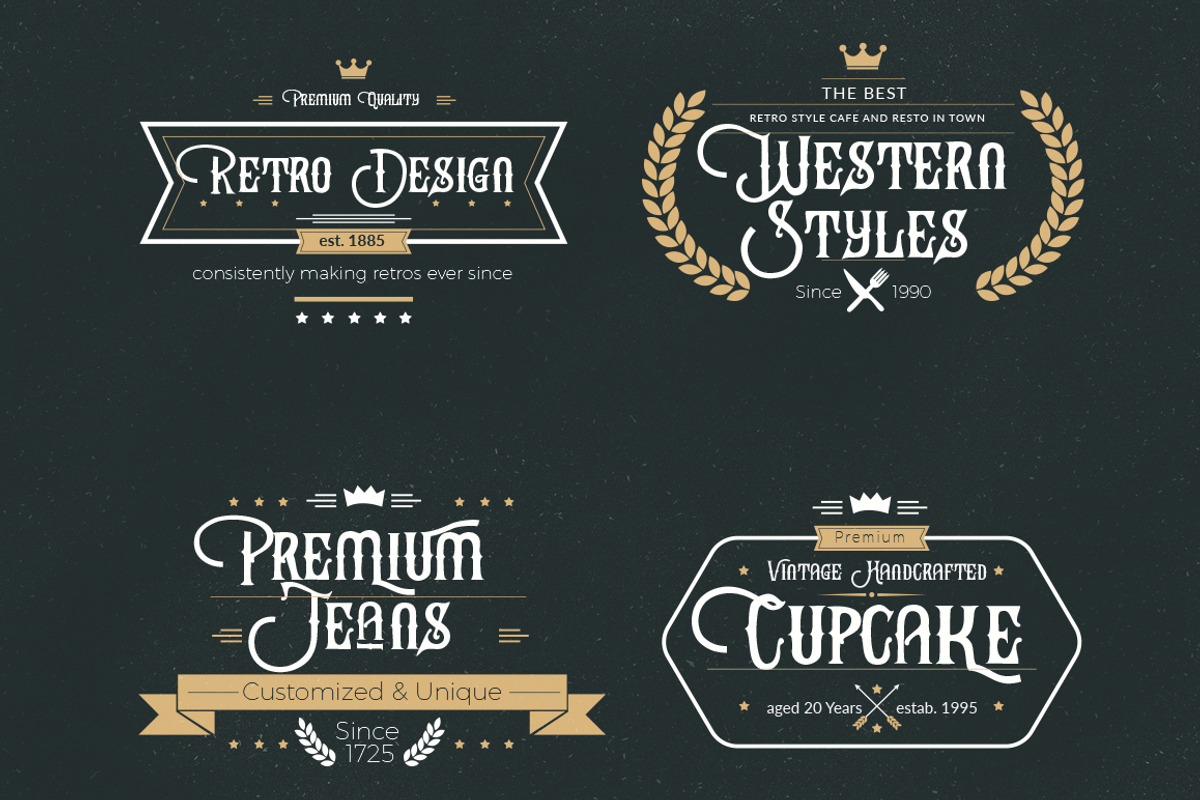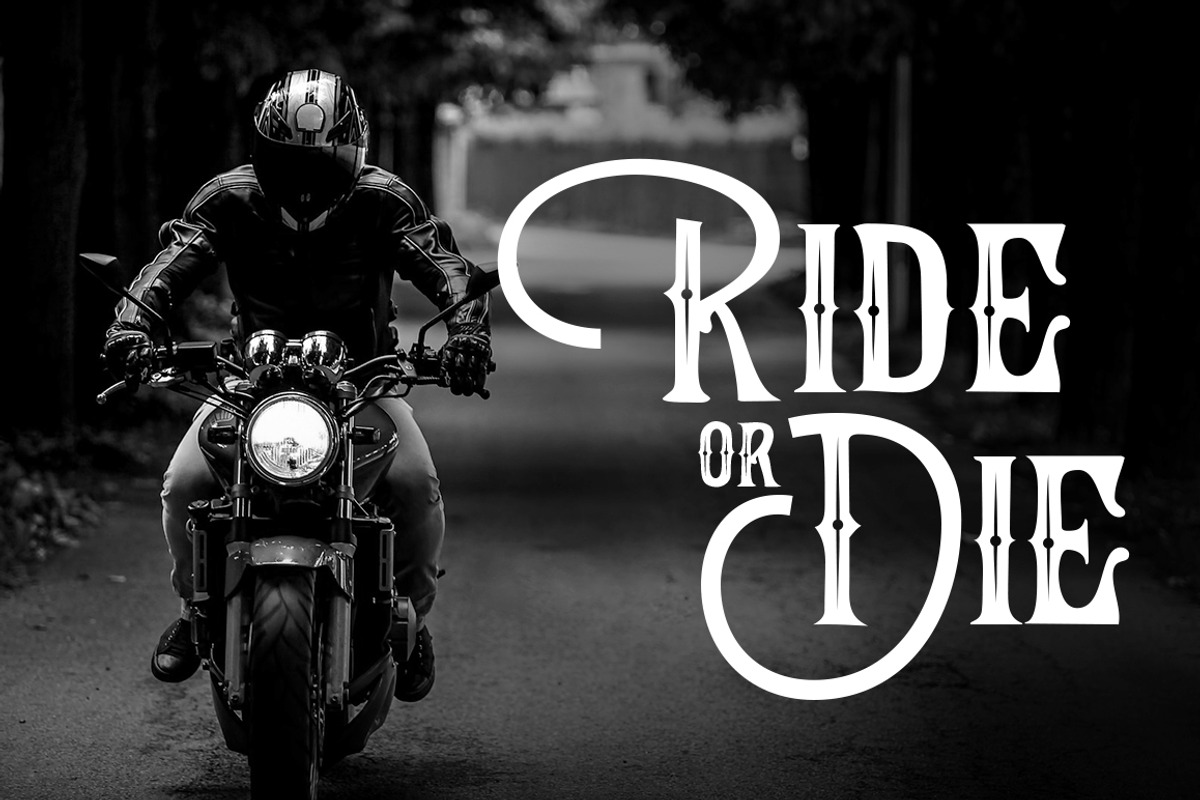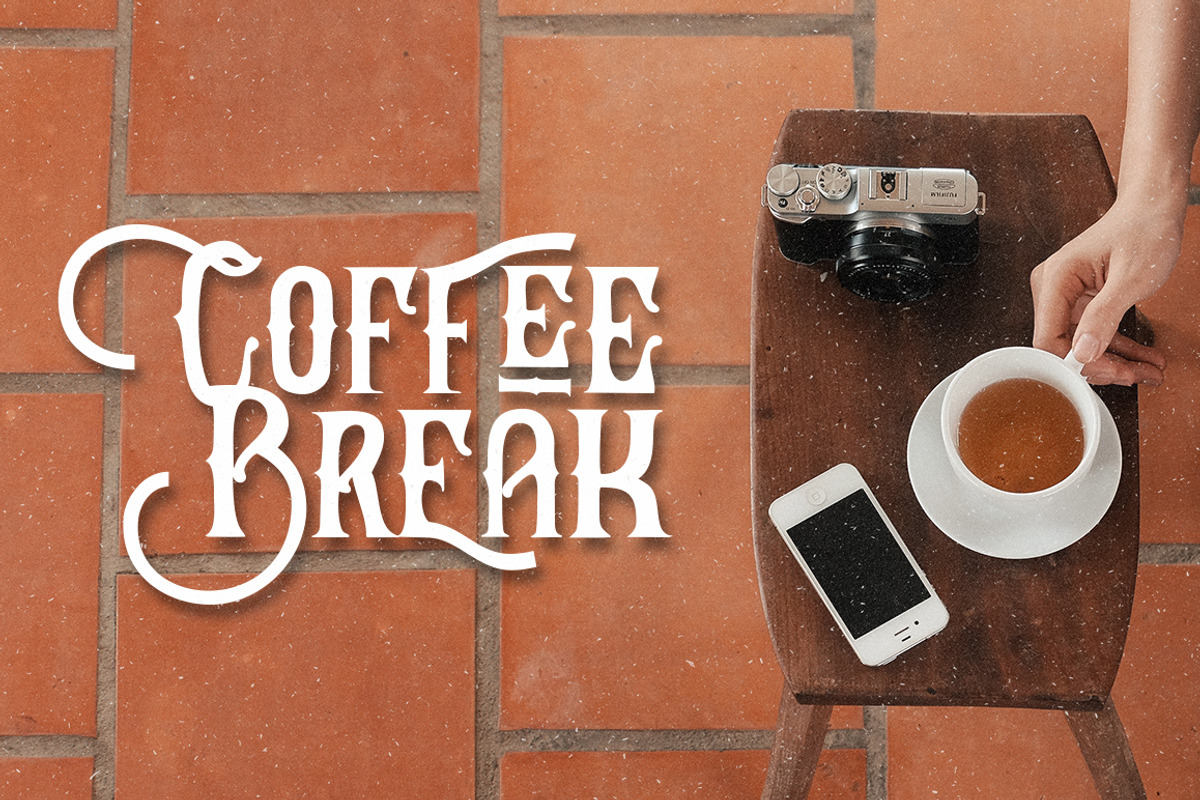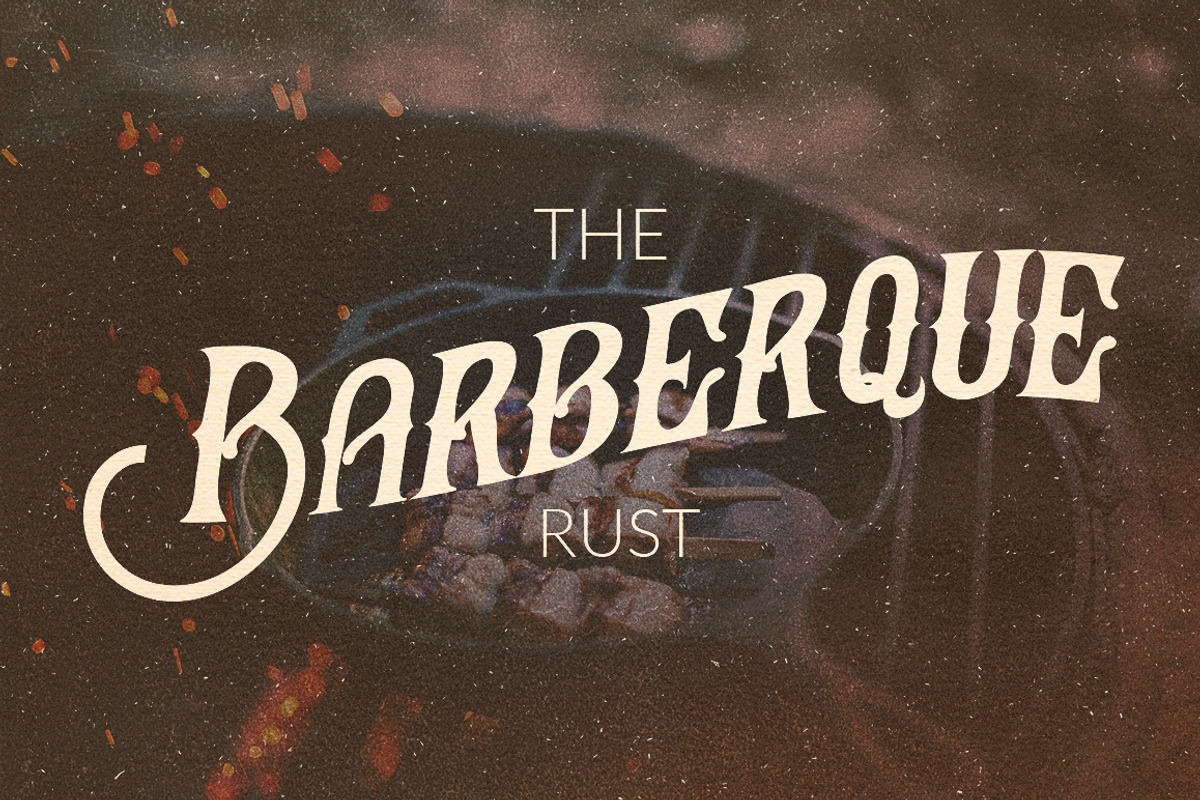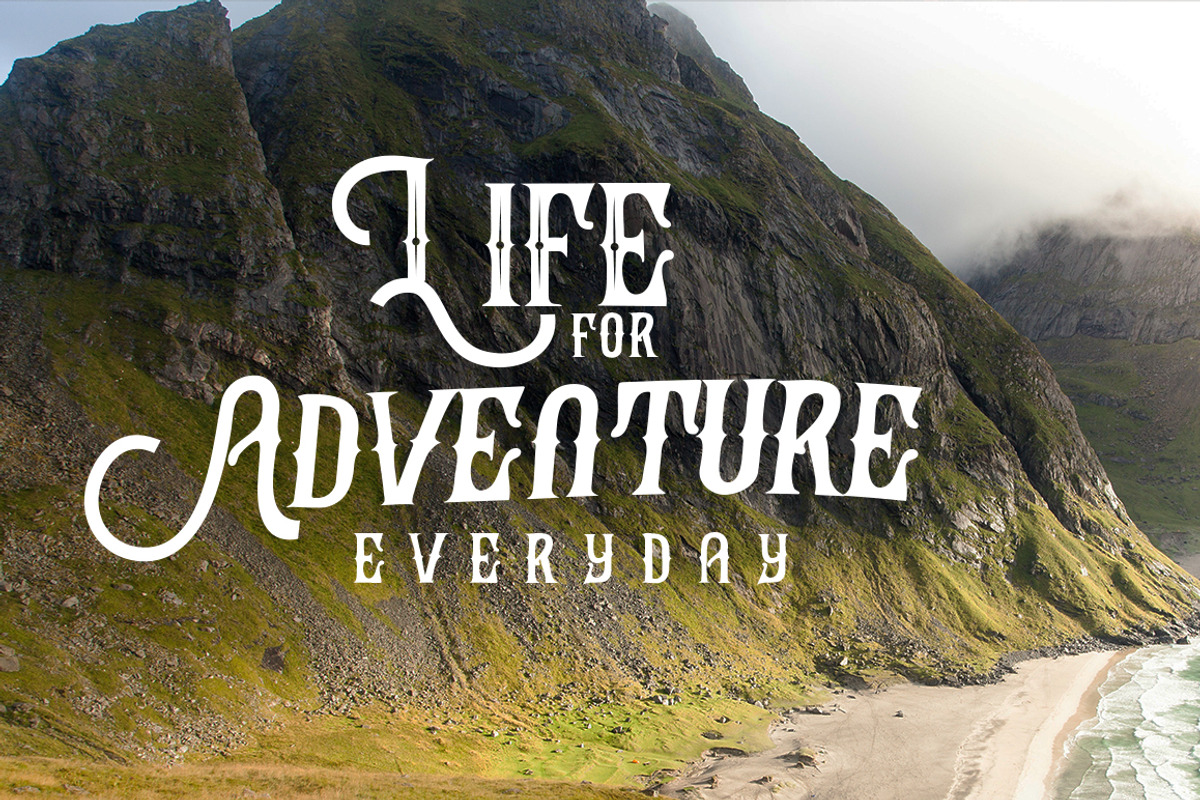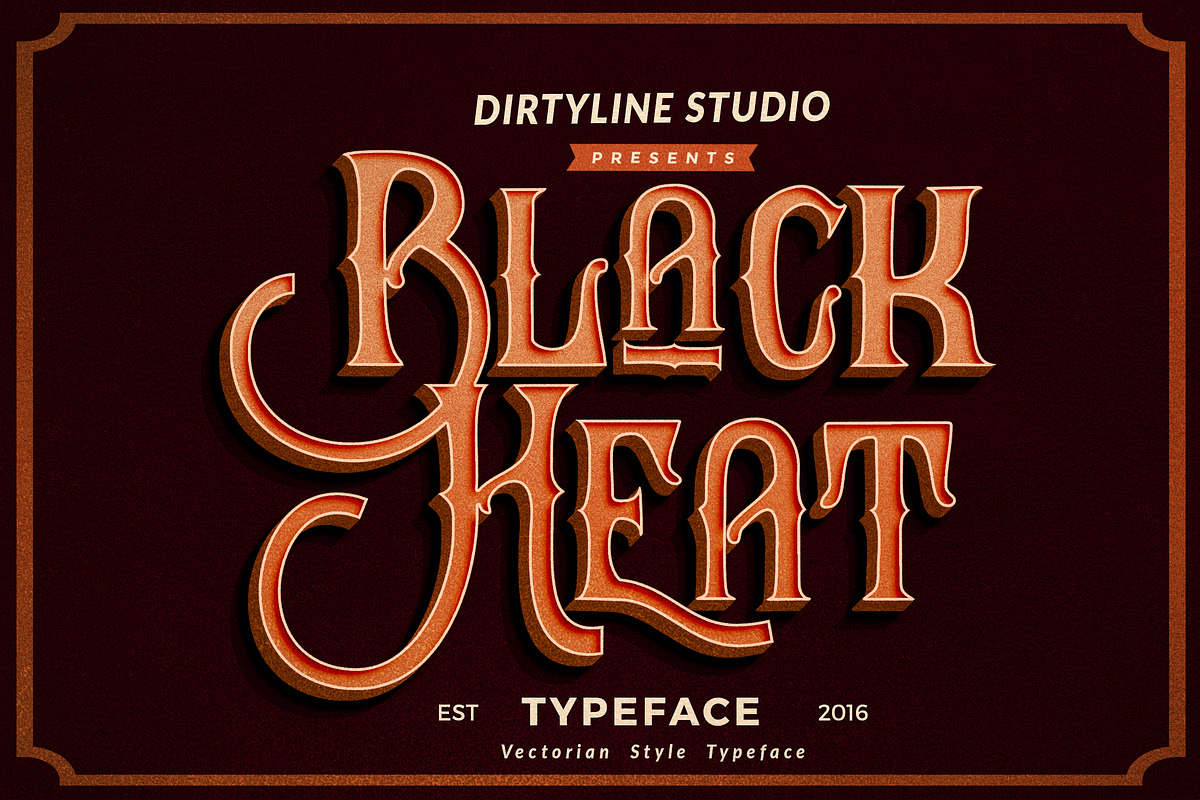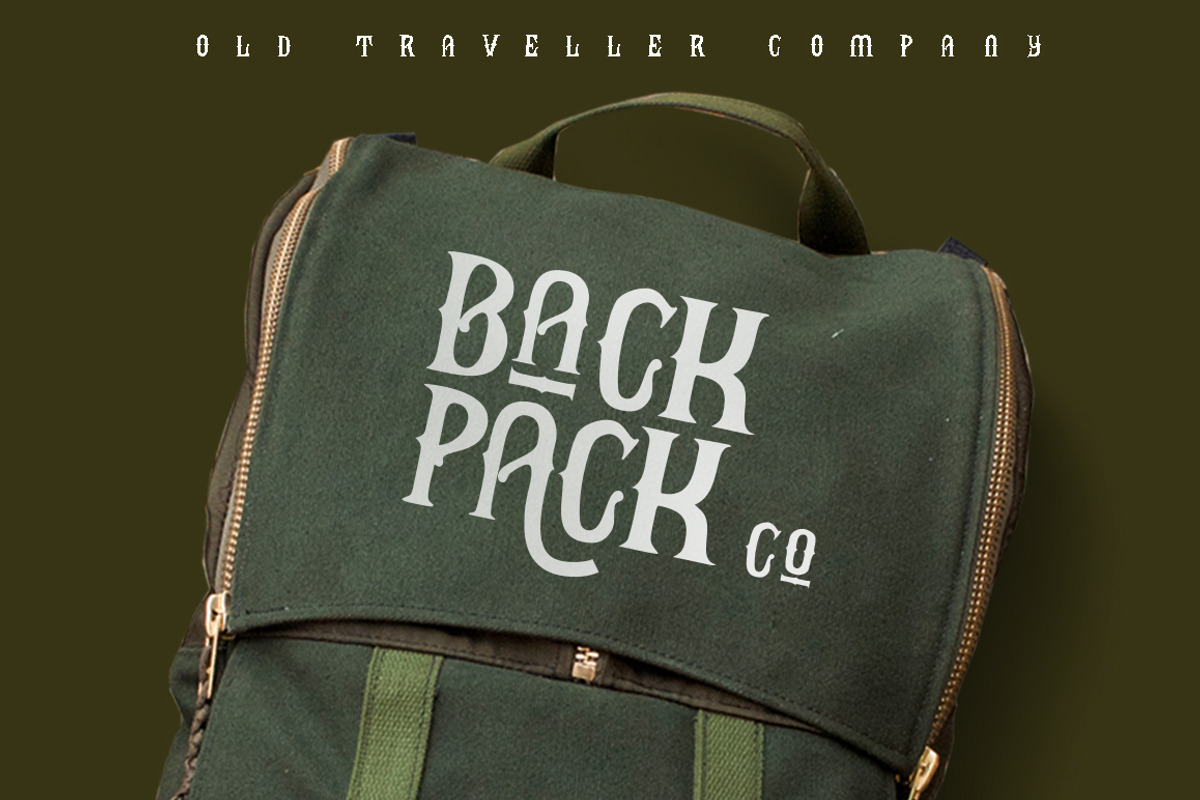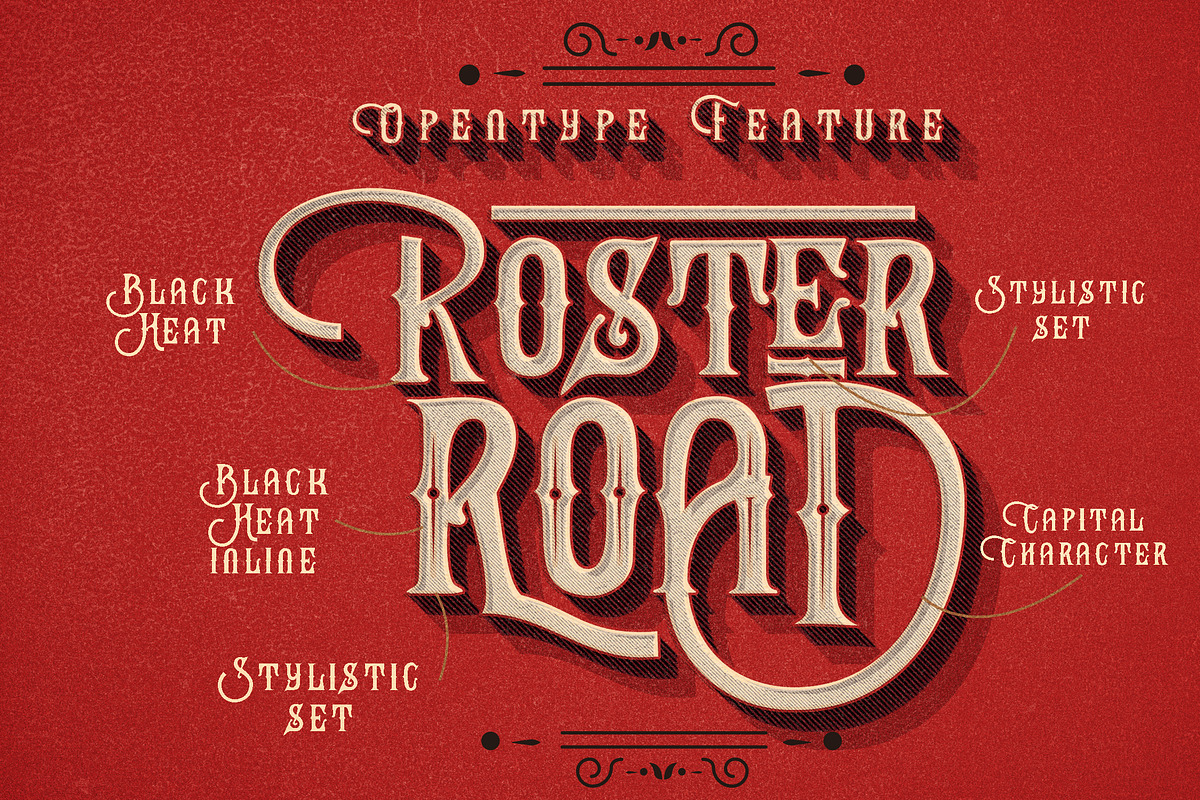
Black Heat
Black Heat - a modern vintage typeface style with decorative characters and a dancing baseline! So beautiful on invitation like greeting cards, branding materials, business cards, quotes, posters, and more!
- Stylistic sets